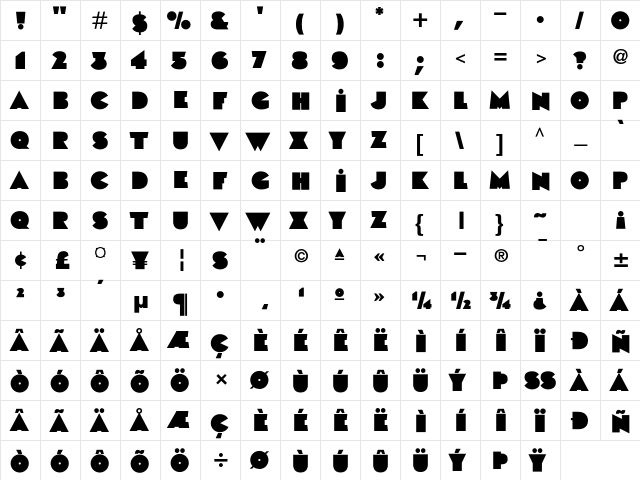
Black Boton Std Bold
Design Context for Black Boton Std Typeface
Black Boton Std takes a measured approach to typography — its balanced proportions and neutral character make it a reliable workhorse for both digital and print work. The heavy weight commands attention and anchors typographic hierarchies.
Pro Tip: Pair Black Boton Std with a font of contrasting weight or personality to build a more expressive typographic hierarchy.